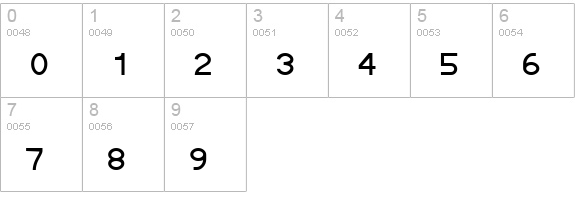
Nu World Font Details
The Nu World font is a captivating and versatile typeface that exudes modernity and sophistication. Its clean lines and contemporary aesthetic make it perfect for a wide range of design projects, from branding to editorial design. With a sleek and elegant look, Nu World is sure to add a touch of class to any project. The best part? Nu World is available for free download at FontsMarket.com, making it accessible to designers and creatives everywhere. Whether you're working on a website, poster, or logo, Nu World is a fantastic choice that will elevate your design to the next level. Don't miss out on this amazing font - download Nu World today and see the difference it can make in your projects!